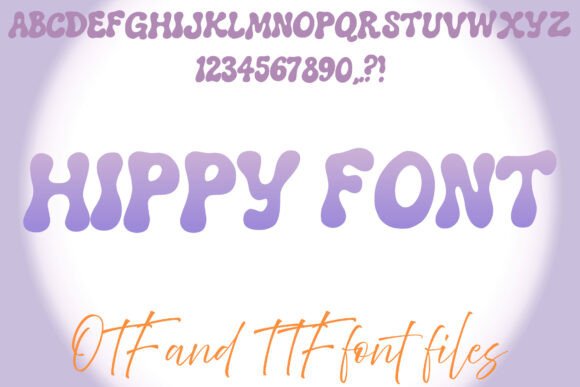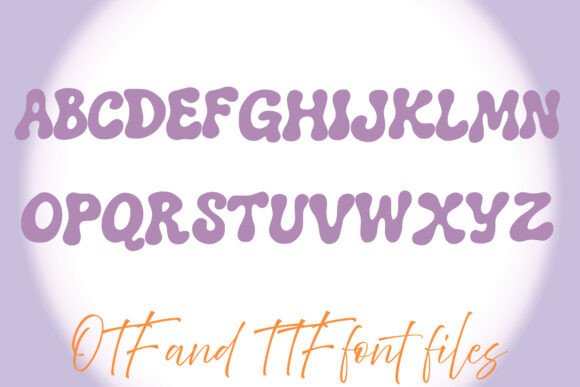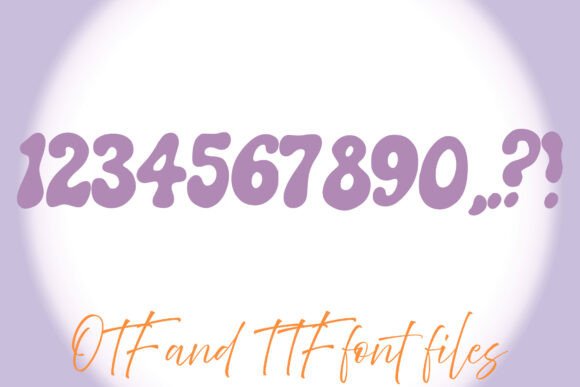
Hippy Font
About the Hippy Font
Add a touch of class to your work with the Hippy Font, a truly exceptional typeface. Hippy Font
brings retro joy and laid-back vibes to your designs with its soft, blobby letterforms and groovy 60s-inspired curves. This playful display font is perfect for throwback posters, music events, kids’ projects, t-shirts, and anything that needs a splash of nostalgia and fun.
Hippy Font’s playful, rounded forms excel in headlines, short slogans, and eye-catching logos where its retro charm can shine. It’s ideal for projects evoking 60s nostalgia, such as vintage-style posters, album art, or branding for businesses with a youthful, free-spirited image. However, its low x-height and informal style make it unsuitable for body text or user interfaces requiring high readability.
Pairing Hippy Font effectively requires a contrasting typeface to provide balance. A clean, geometric sans-serif like Futura or a more modern, neutral sans-serif such as Open Sans would offer strong visual contrast and enhance readability in supporting text. For a more whimsical approach, consider a script font with a similar vintage feel, but with greater legibility for smaller text sizes.
The overall personality of Hippy Font is undeniably cheerful and informal, conveying a sense of relaxed fun and optimism. Its retro aesthetic makes it a strong choice for brands wanting to tap into the carefree spirit of the 1960s, but its limited versatility necessitates careful consideration of its use within a broader design context.